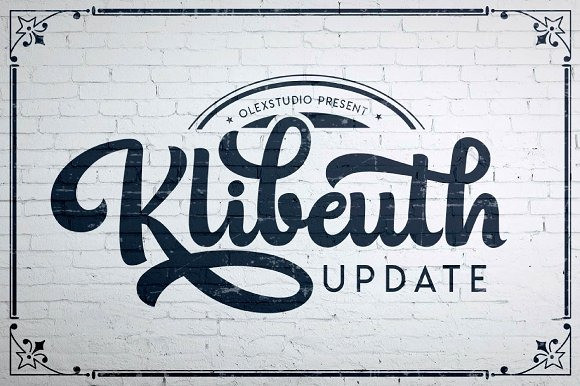
Klibeuth Script Font is a beautiful Bold Script Font, It suitable for Design, greeting cards, T-Shirt, Logo, Branding or any design that you create.comes with a complete set of standard characters, Alternates, Punctuation & international glyphs